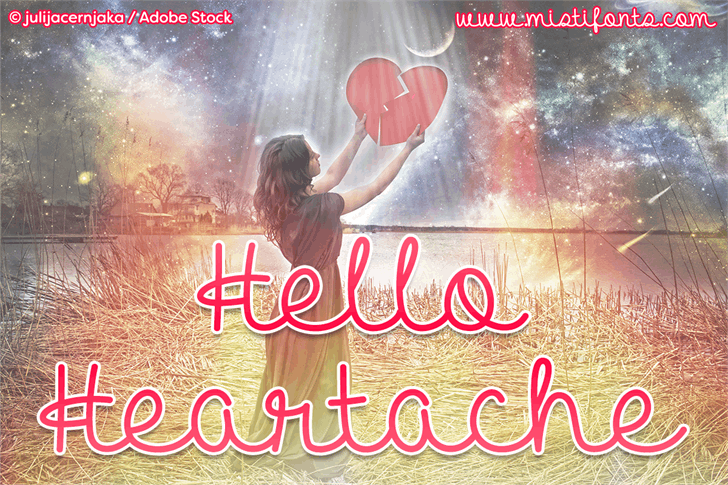
Free Hello Heartache Font
Download and enjoy this free hello heartache font. Cool typeface to showcase your designs in a modern way. Go give some love to Font Space for creating this top-notch font. Showcase your designs like a graphic design pro by adding a new touch with this fancy font.